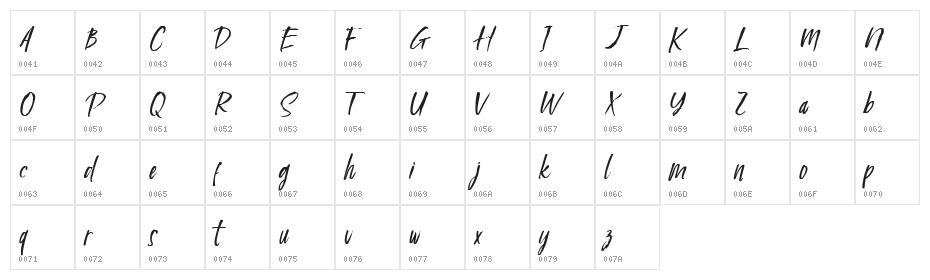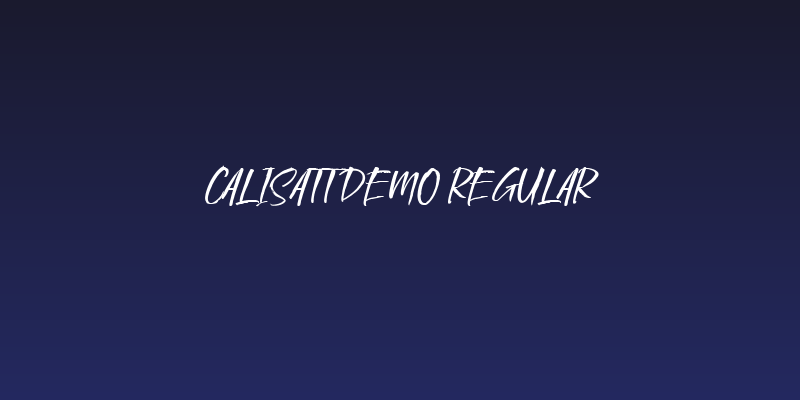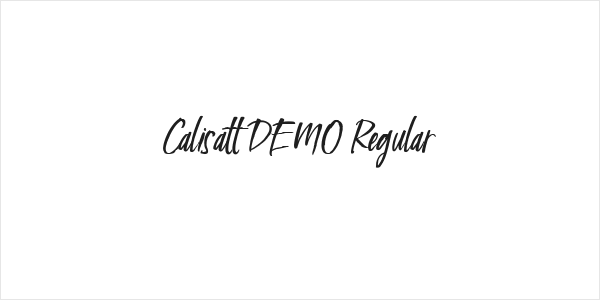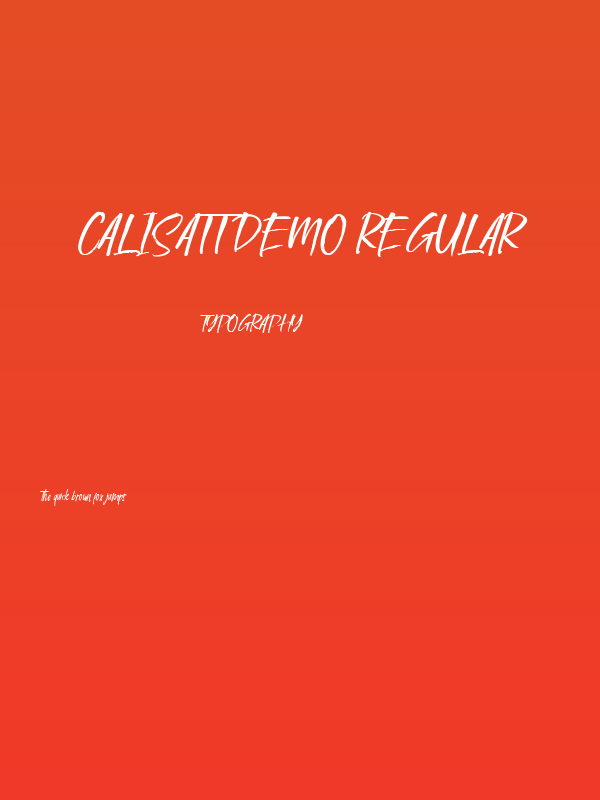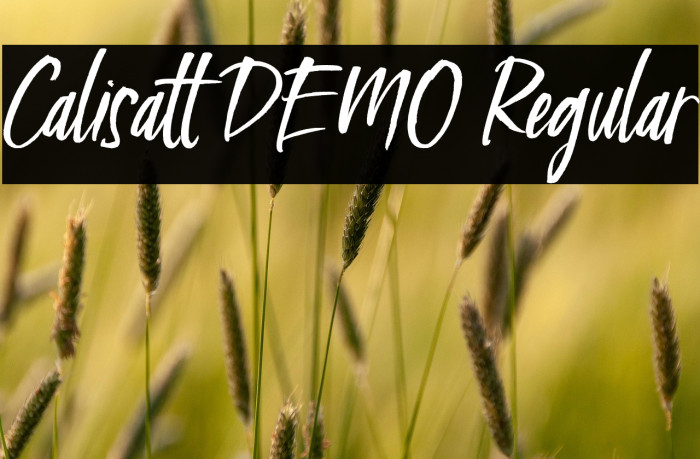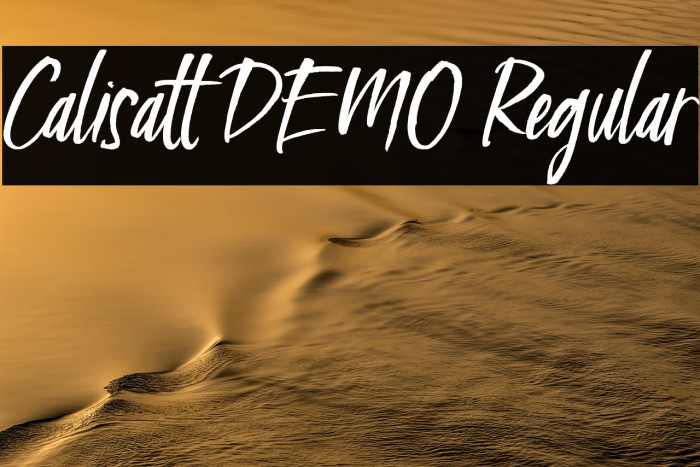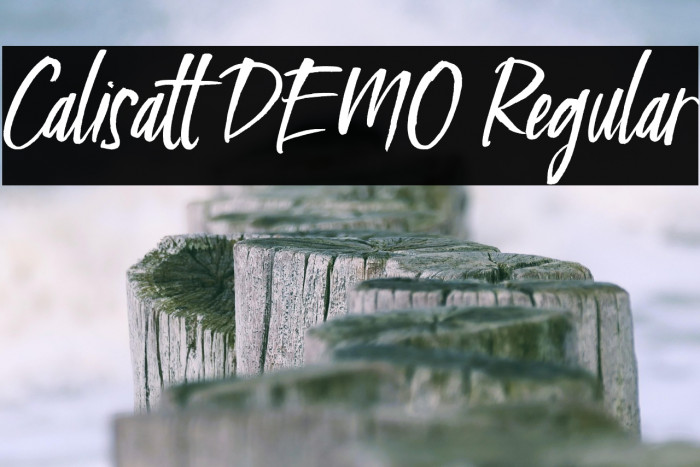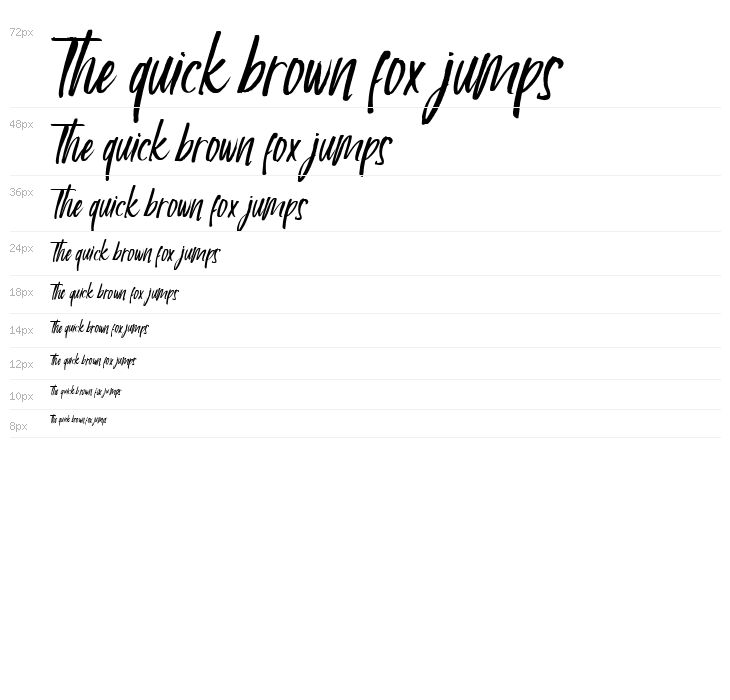
Calisatt DEMO Regular Font
Calisatt DEMO Regular Description
This font features a dynamic and expressive handwritten style, characterized by its fluid strokes and natural flow. The letters are slightly slanted, giving a sense of movement and energy. The uppercase letters are bold and prominent, while the lowercase letters maintain a consistent style with a slightly more delicate touch. The overall appearance is artistic and lively, making it suitable for projects that require a personal and creative touch. The font's brush-like texture adds a handcrafted feel, enhancing its uniqueness and appeal.
| Proposed Projects | Ideal for creative projects such as invitations, greeting cards, posters, and branding materials that require a personal and artistic touch. |